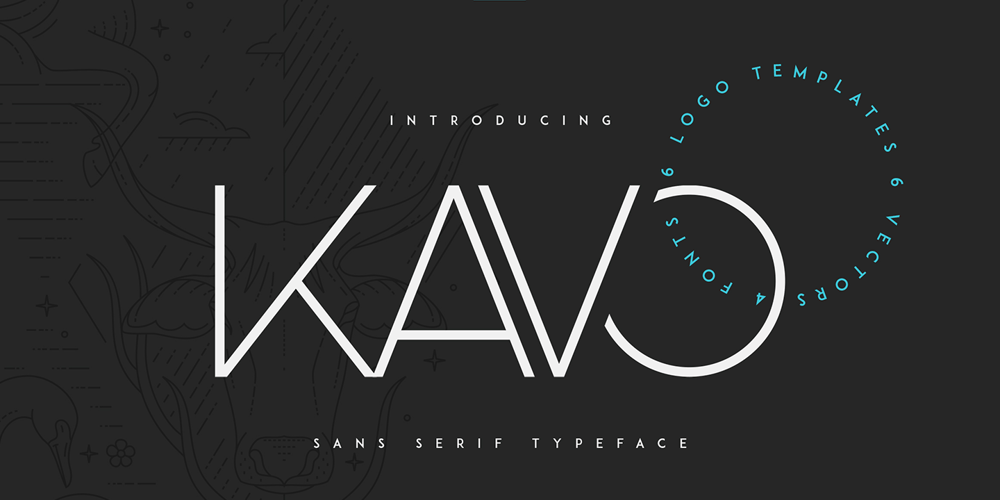
Kavo Sans Font Family was designed by Vladimir Fedotov, Plamen Petrov and published by VP Creative Shop. Kavo Sans contains 4 styles and family package options. Introducing Kavo Sans Serif typeface – 4 weightsKavo is clean, modern typeface with 4 weight, ligatures and multilingual support. It’s a very versatile font that works great in large and small sizes.Kavo is perfect for branding projects, home-ware designs, product packaging, magazine headers – or simply as a stylish text overlay to any background image. Uppercase, numeral, punctuation & Symbol Light Regular Bold Black Multilingual support Feel free to contact me if you have any questions!Mock ups and backgrounds used are not included.Thank you! Enjoy!